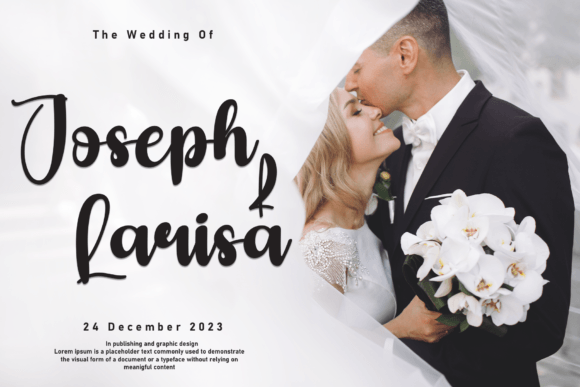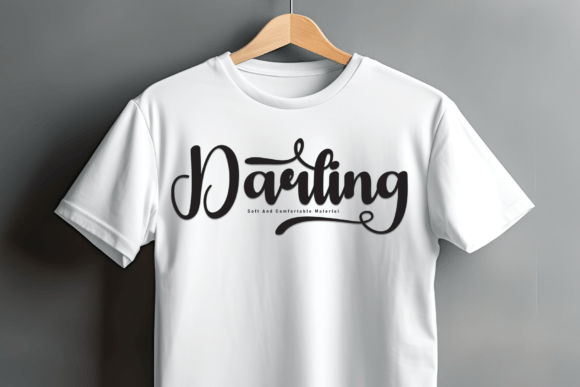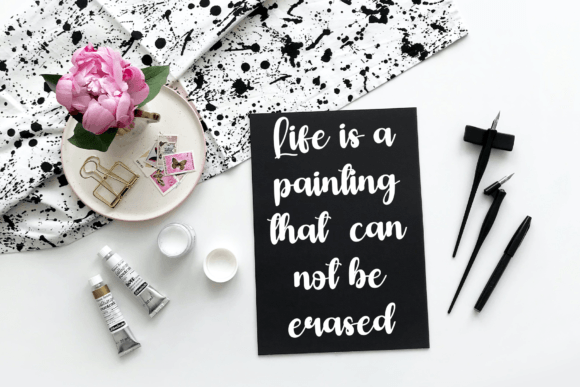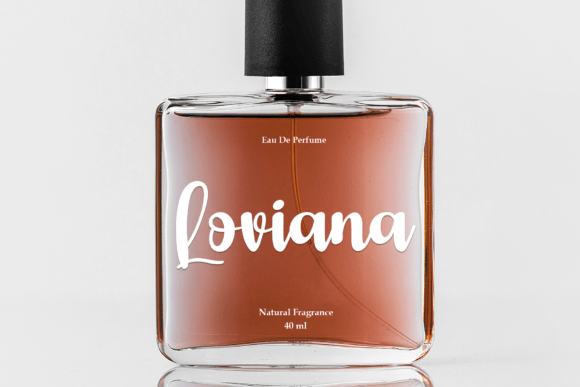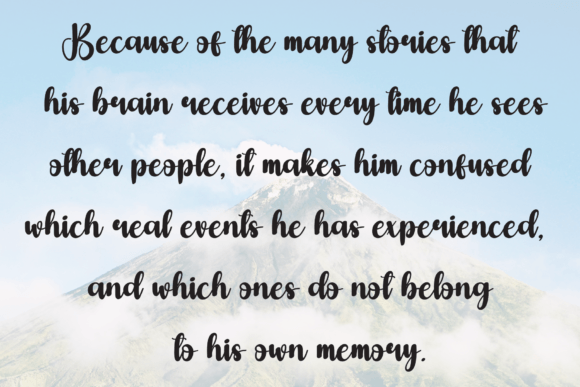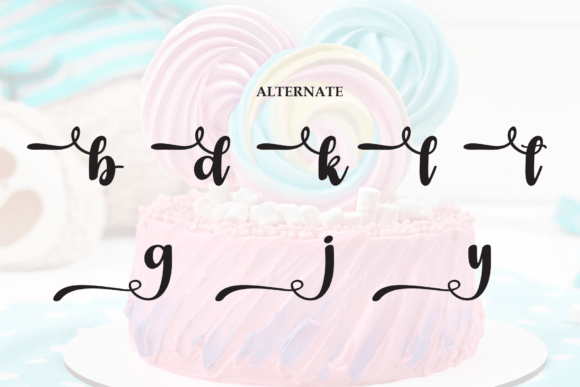
Candy Party Font: Add a Sweet Touch to Your Designs
Are you looking for a font that can add a playful and whimsical touch to your designs? Look no further than the Candy Party font! This sweet and friendly handwritten display font is perfect for creating fun and eye-catching designs that are sure to delight. In this article, we’ll take a closer look at the Candy Party font, its features, and how you can use it to elevate your designs.
What is Candy Party Font?
Candy Party is a beautiful handwritten display font that is designed to bring a touch of sweetness and fun to your designs. With its cute and playful lettering style, this font is ideal for creating designs that require a friendly and approachable tone. Whether you’re designing wedding invitations, greeting cards, or any other type of project, Candy Party is the perfect choice.
Key Features of Candy Party Font
So, what makes Candy Party font so special? Here are some of its key features:
- Handwritten style: Candy Party has a beautiful handwritten style that gives it a personal and friendly touch.
- Cute and fun: This font is designed to be playful and fun, making it perfect for designs that require a lighthearted tone.
- Display font: Candy Party is a display font, which means it’s designed to be used at larger sizes, making it perfect for headings and titles.
- Easy to read: Despite its playful style, Candy Party is easy to read, making it perfect for use in a variety of designs.
Uses for Candy Party Font
So, how can you use Candy Party font in your designs? Here are some ideas to get you started:
- Wedding invitations: Add a touch of sweetness and romance to your wedding invitations with Candy Party font.
- Greeting cards: Use Candy Party font to create fun and playful greeting cards for birthdays, holidays, and other special occasions.
- Party invitations: Whether you’re planning a birthday party, baby shower, or other celebration, Candy Party font is the perfect choice for your invitations.
- Social media graphics: Add a playful touch to your social media graphics with Candy Party font.
- Branding and packaging: Use Candy Party font to add a friendly and approachable tone to your branding and packaging designs.
Tips for Using Candy Party Font
Here are some tips for getting the most out of Candy Party font:
- Use it at larger sizes: Candy Party font is designed to be used at larger sizes, so don’t be afraid to experiment with different sizes to find the one that works best for your design.
- Pair it with other fonts: Candy Party font pairs well with a variety of other fonts, so don’t be afraid to experiment with different combinations to find the one that works best for your design.
- Add some color: Candy Party font is perfect for use with bright and bold colors, so don’t be afraid to add some fun and playful colors to your design.
In conclusion, Candy Party font is a sweet and friendly handwritten display font that is perfect for adding a playful touch to your designs. With its cute and fun lettering style, this font is ideal for creating designs that require a friendly and approachable tone. Whether you’re designing wedding invitations, greeting cards, or any other type of project, Candy Party is the perfect choice. So why not give it a try and see how it can elevate your designs?
- What type of font is Candy Party?: Candy Party is a handwritten display font.